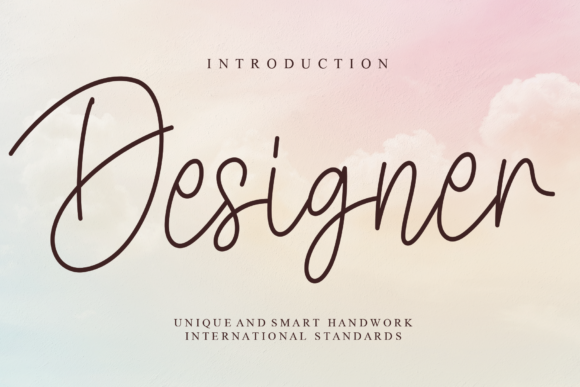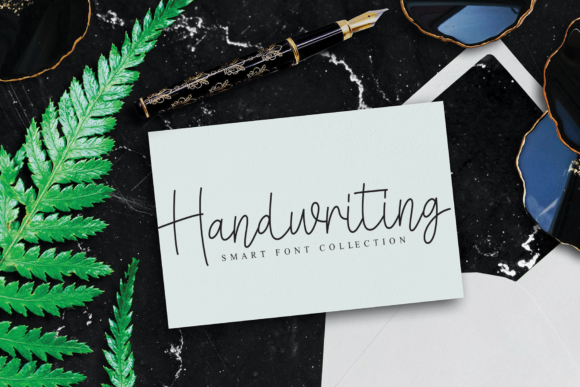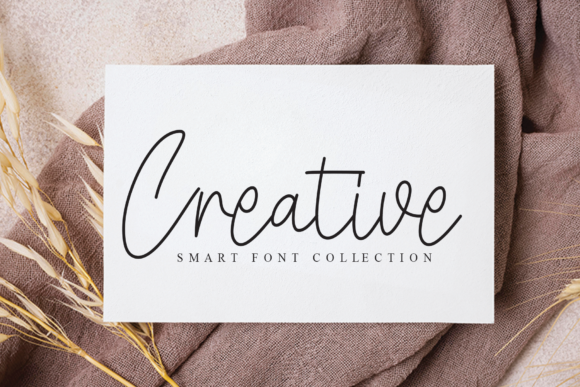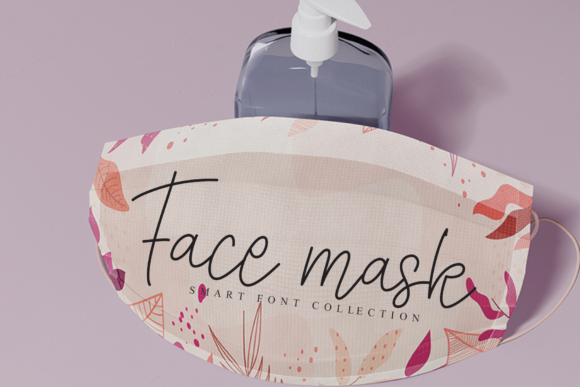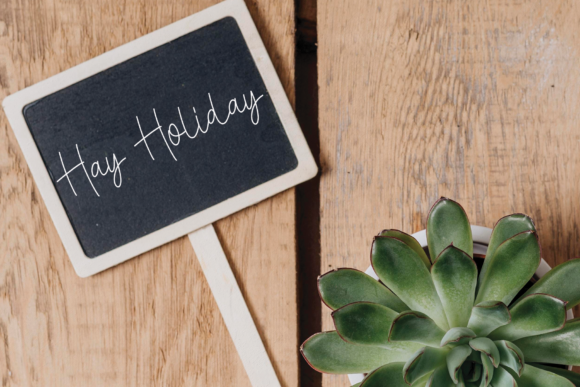
Designer Font
About Designer Font
This elegant and sophisticated script font is here to impress! Add it to your most exquisite projects such as wedding invitations, birthday cards, wedding vows, fancy magazine titles, and others!